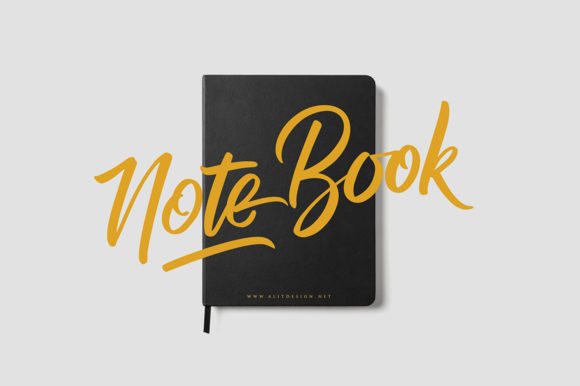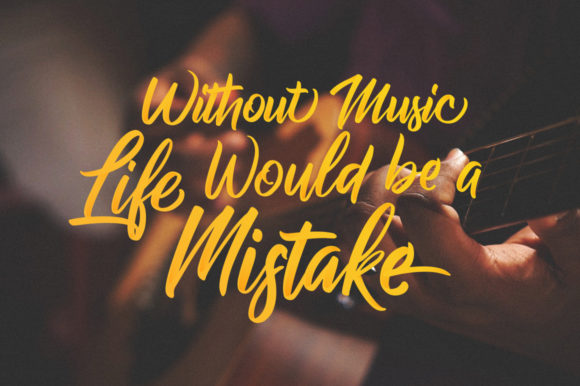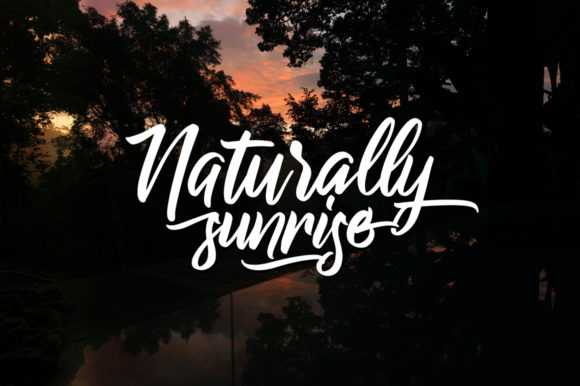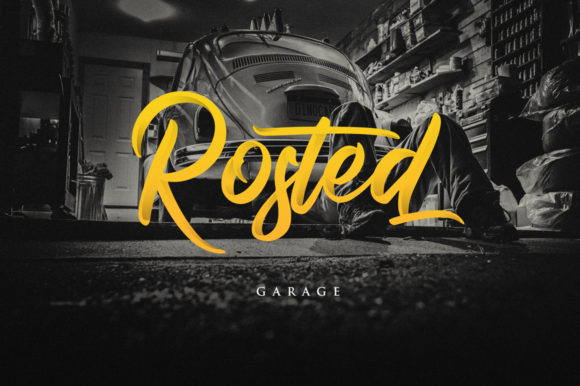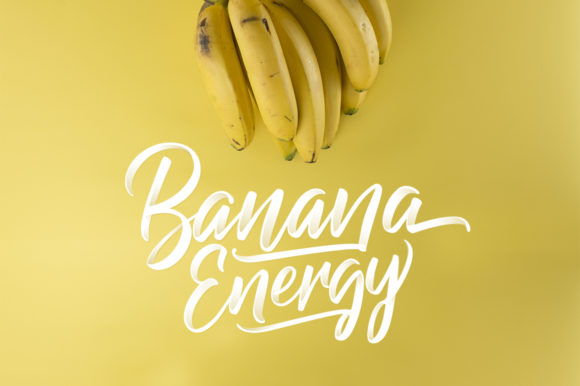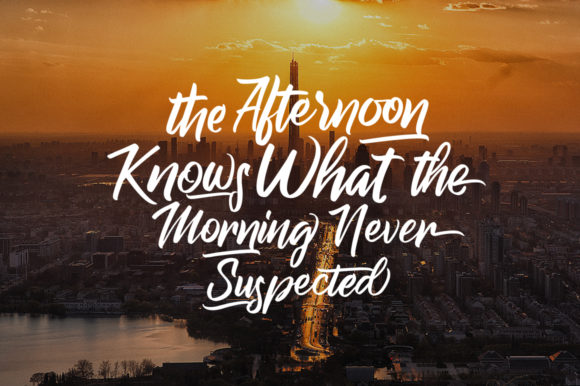
Introduction to Raph Lanok Font
You’ve finally landed the perfect brief, and it’s time to unleash your creativity. As you sit in front of your computer, a blank canvas stares back at you, waiting to be transformed into a masterpiece. The only thing holding you back is the perfect font to set the tone for your design project. That’s when you stumble upon Raph Lanok Font – a game-changer that will elevate your work to new heights.
With its elegant and smooth style, Raph Lanok Font is the perfect addition to any design project. Whether you’re working on a creative project that requires a high-quality, transparent background or a design resource that needs a touch of sophistication, this font is sure to impress. And the best part? It’s available for free download, making it an accessible design resource for designers of all levels.
Key Features of Raph Lanok Font
- High-quality, professional font suitable for creative projects and designs.
- Transparent background, allowing for seamless integration into various design resources.
- Unique, modern design with a touch of elegance, perfect for adding a creative twist to any project.
Honest Review: Raph Lanok Font
I recently came across the Raph Lanok Font, a design resource that’s been making waves in the creative community. In this review, I’ll share my honest thoughts on its usability and overall quality.
- Unique design style: The Raph Lanok Font boasts a distinctive, hand-drawn feel that adds character to any project.
- High-quality graphics: The font’s design is crisp and clear, making it perfect for printing or digital use.
- Limited customization: The font’s design is fixed, so you can’t adjust the color or size to suit your specific needs.
- No transparent background: While the font itself is high-quality, the background image is not transparent, which can make it difficult to use in certain situations.
Overall, I’m impressed with the Raph Lanok Font’s unique design and high-quality graphics. While it has some limitations, it’s a great resource for designers working on creative projects. If you’re looking for a free design resource with a lot of character, the Raph Lanok Font is definitely worth checking out.
Tips for Getting the Most Out of Raph Lanok Font
Experiment with different font sizes, colors, and styles to find the perfect combination for your design. Use Raph Lanok Font for headings, titles, or any text that requires emphasis in your creative project.
Common Use Cases for Raph Lanok Font
Raph Lanok Font is ideal for creative projects that require a unique and stylish touch. Use it for branding, logos, or any design that demands attention and sophistication.